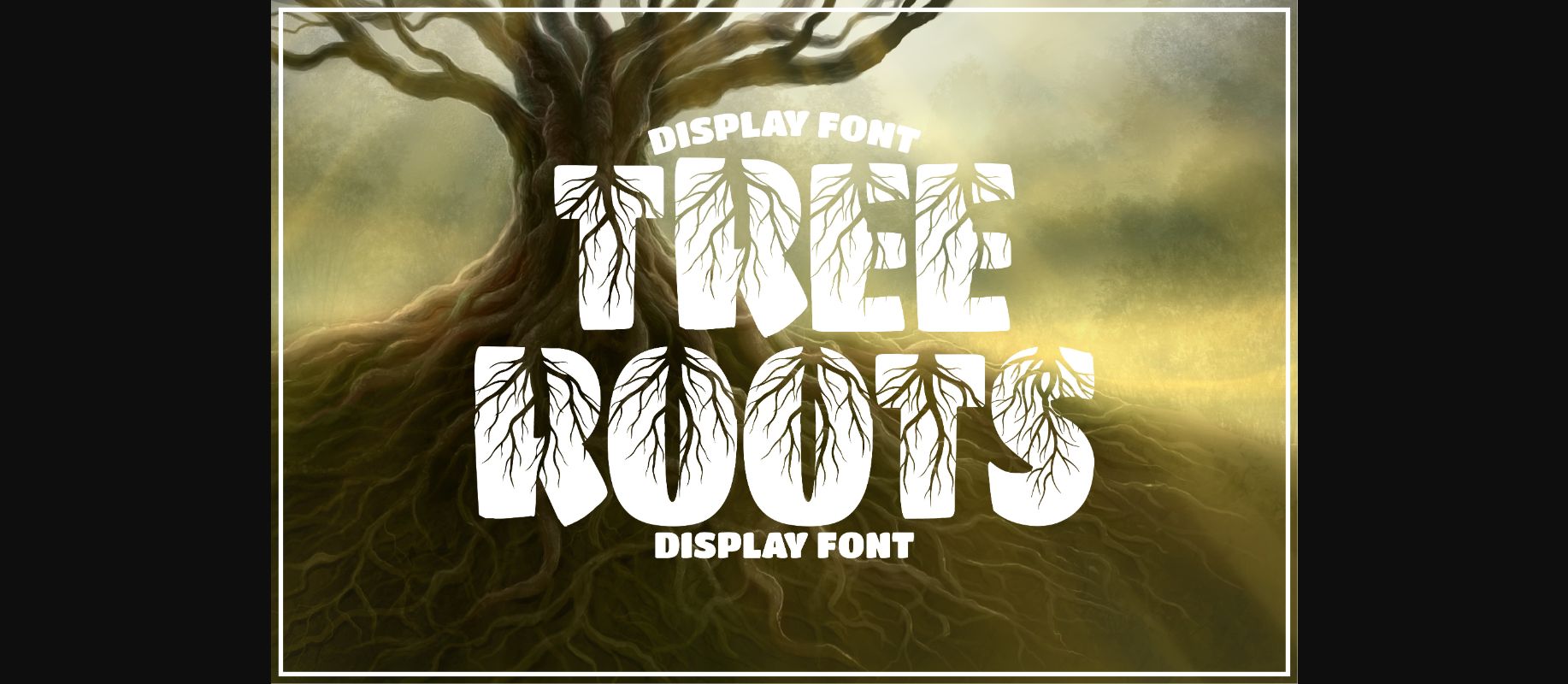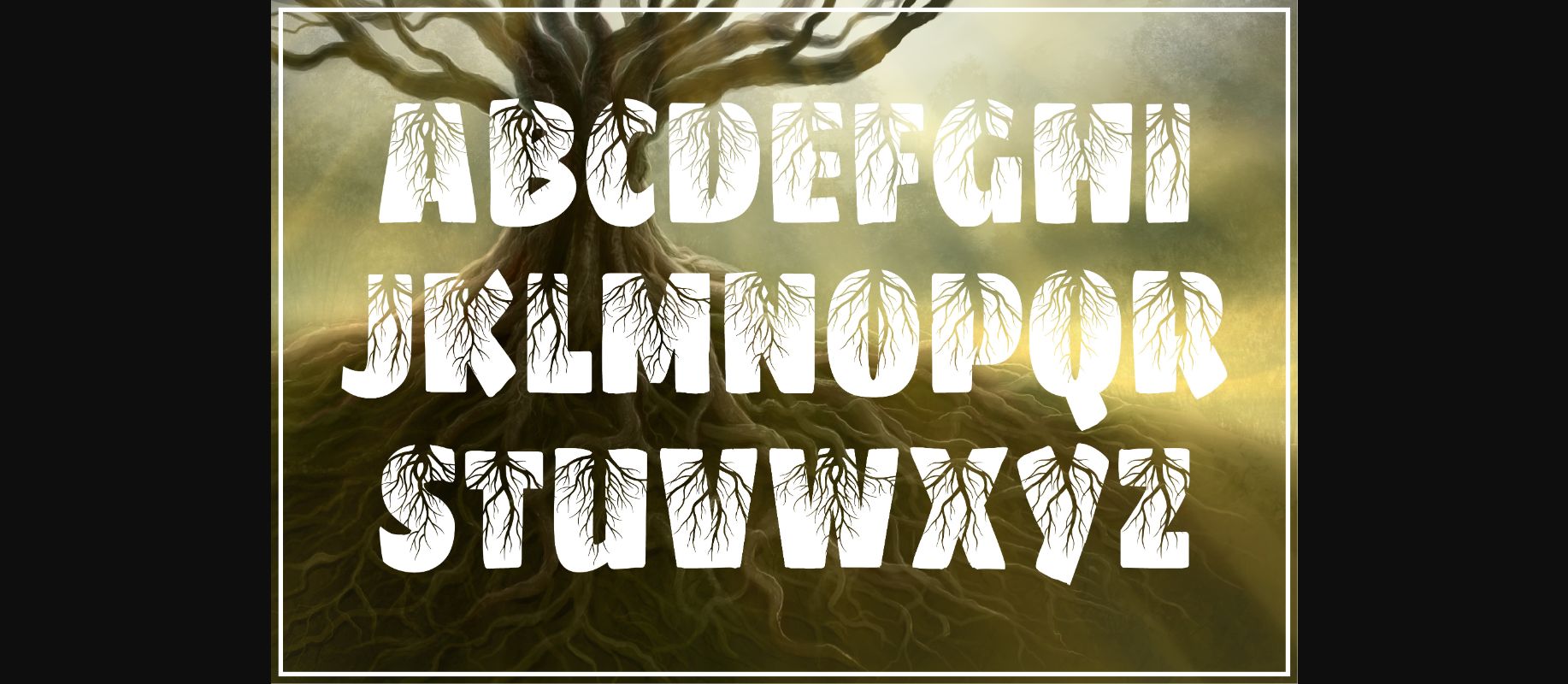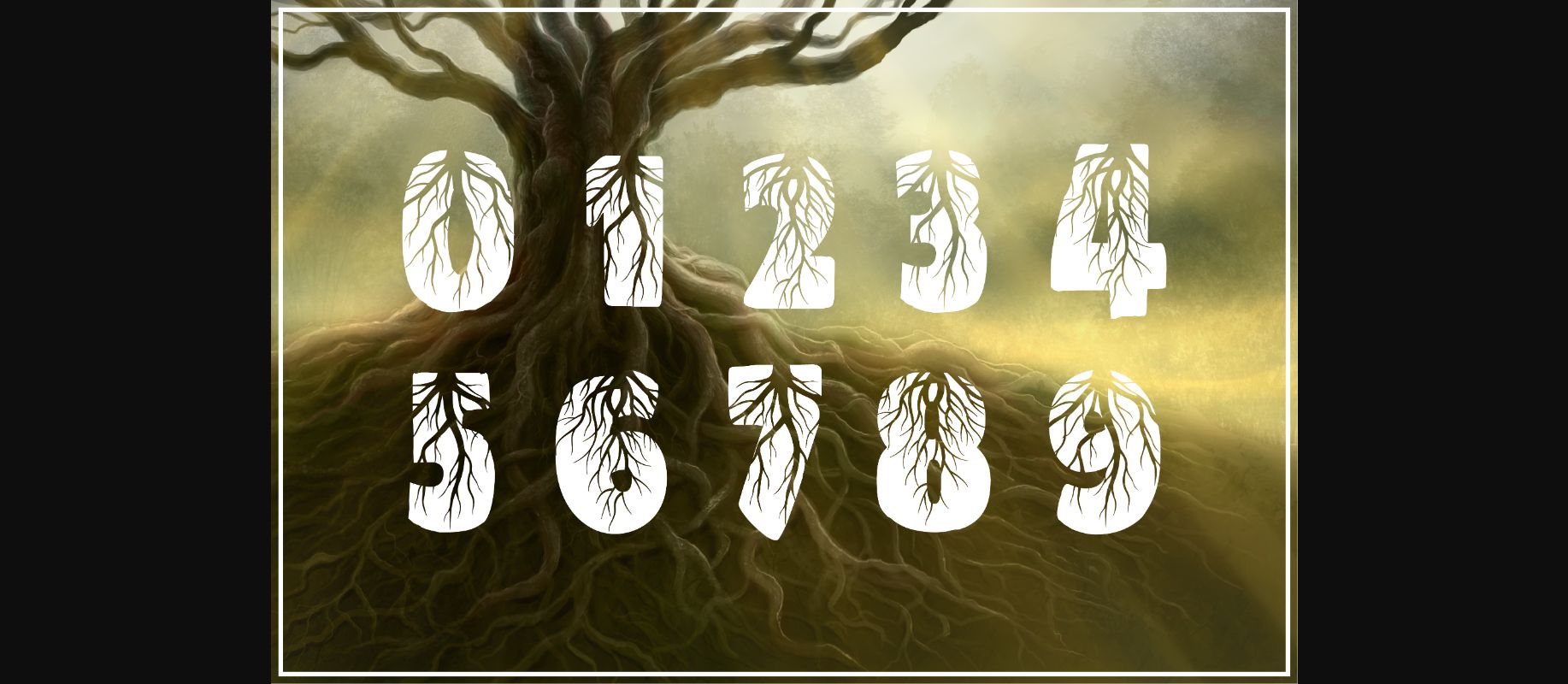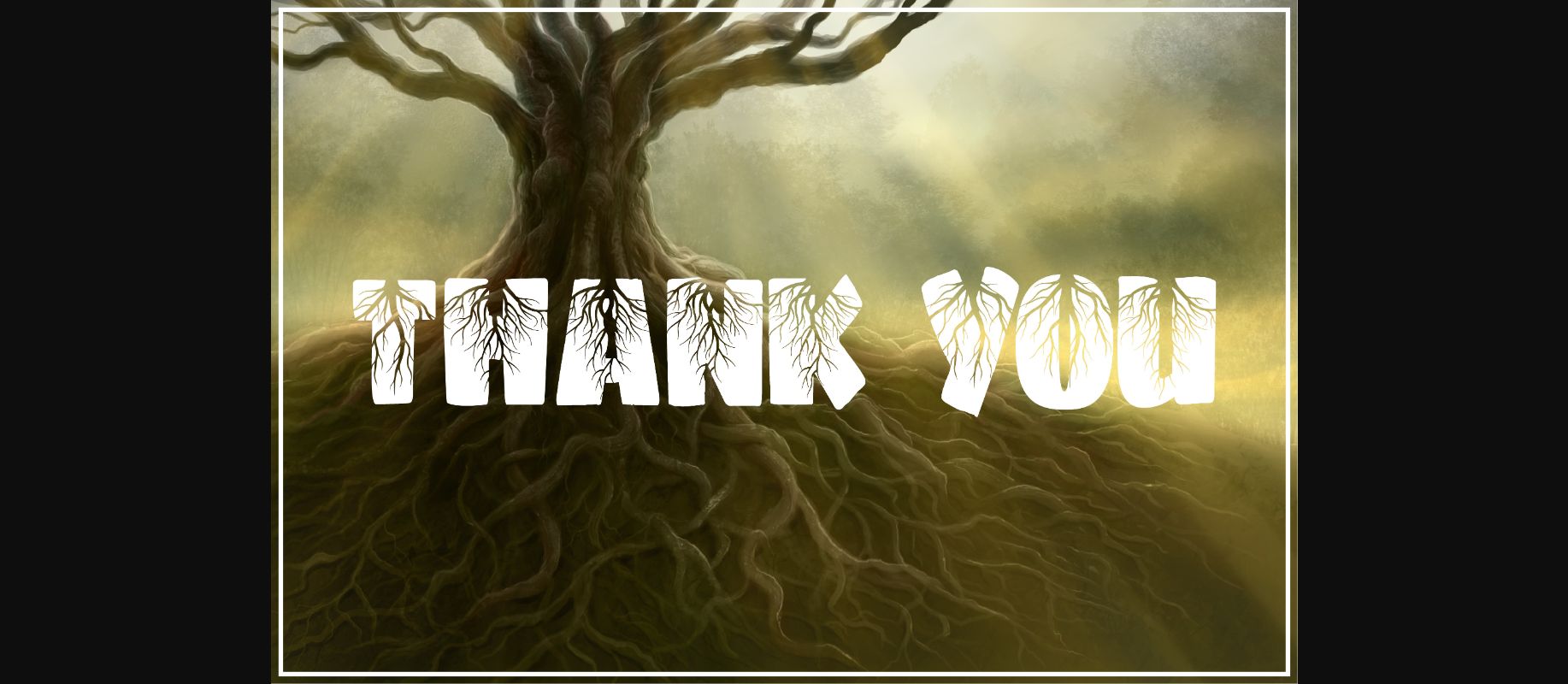
HomeDecorative FontsTree Roots Font Decorative Fonts Tree Roots Font FacebookXPinterestWhatsApp 1 of 6 ... Tree Roots Font Poster 2... Tree Roots Font Poster 3... Tree Roots Font Poster 4... Tree Roots Font Poster 5... Tree Roots Font Poster 6... About Tree Roots Font Tree Roots is a thick lettered and incredibly unique decorative font. It can be used for a large variety of projects and it will definitely brighten up your crafty ideas. DOWNLOAD NOW People also explored Joy of Christmas Font Chating Love Font Asnawy Font Leslie Dawn Font South Walles Font Canesster Font Guardilostra Font October Font Cleverse Font 356 0 TagsTree Roots Font Previous articleHappy Day FontNext articleHello Daisy Font LEAVE A REPLY Cancel reply Comment: Please enter your comment! Name:* Please enter your name here Email:* You have entered an incorrect email address! Please enter your email address here Website: Save my name, email, and website in this browser for the next time I comment. Personal Use Free Fribash Personal Use Free Read more about this font Dream Personal Use Free Read more about this font Travelling Free Brush Personal Use Free Read more about this font Goldsaber Personal Use Free Read more about this font BLOG 5 Fonts That Will Dominate Design Trends in 2026 5 Fonts for 2026 That Will Dominate Design Trends Typography plays a critical role in visual communication, and as we look ahead to 2026, it’s... Exploring Font Trends Using Fonts in Digital Marketing: Tips to Strengthen Your Brand Identity How to Cut Any Font on Cricut: Convert a Font to SVG (Free)